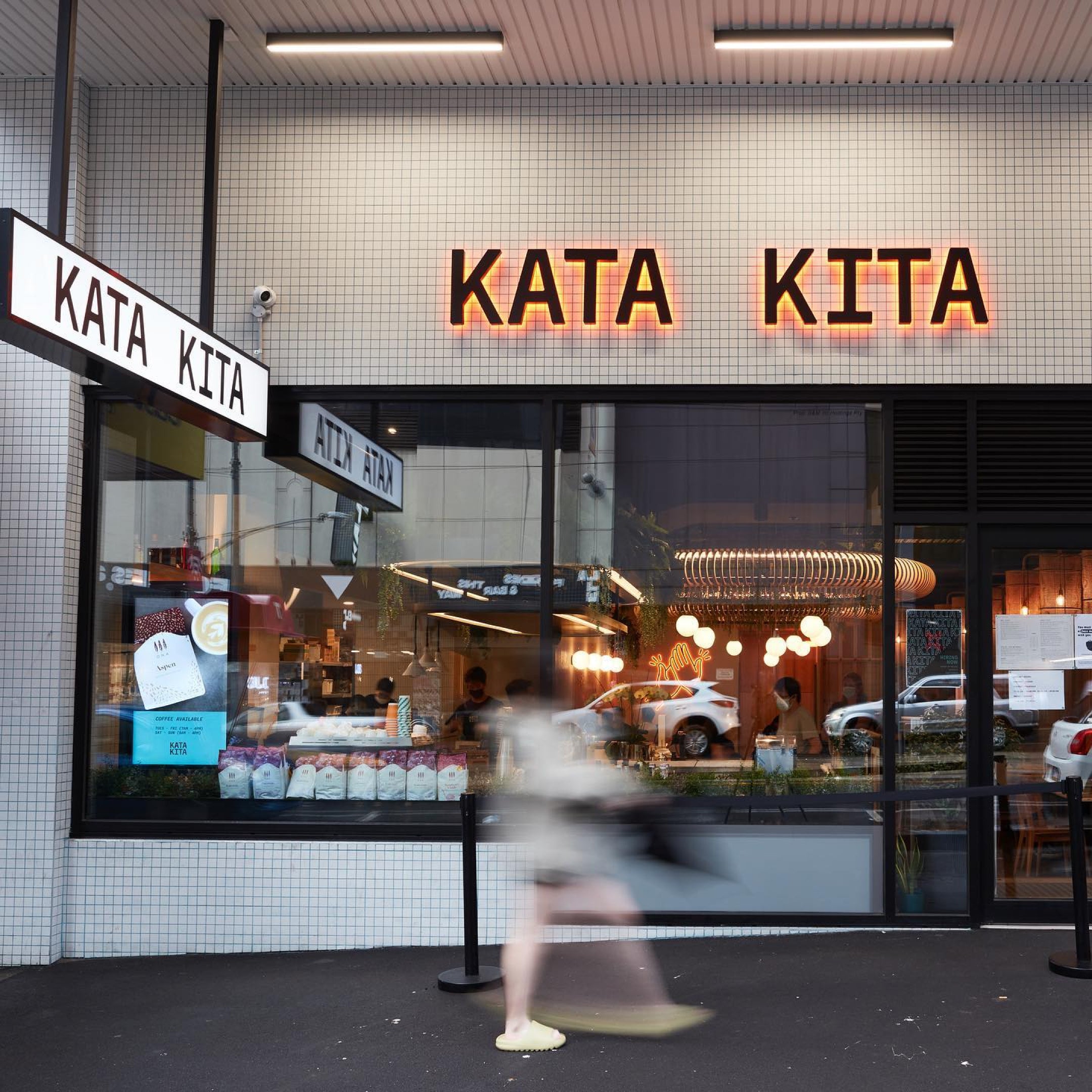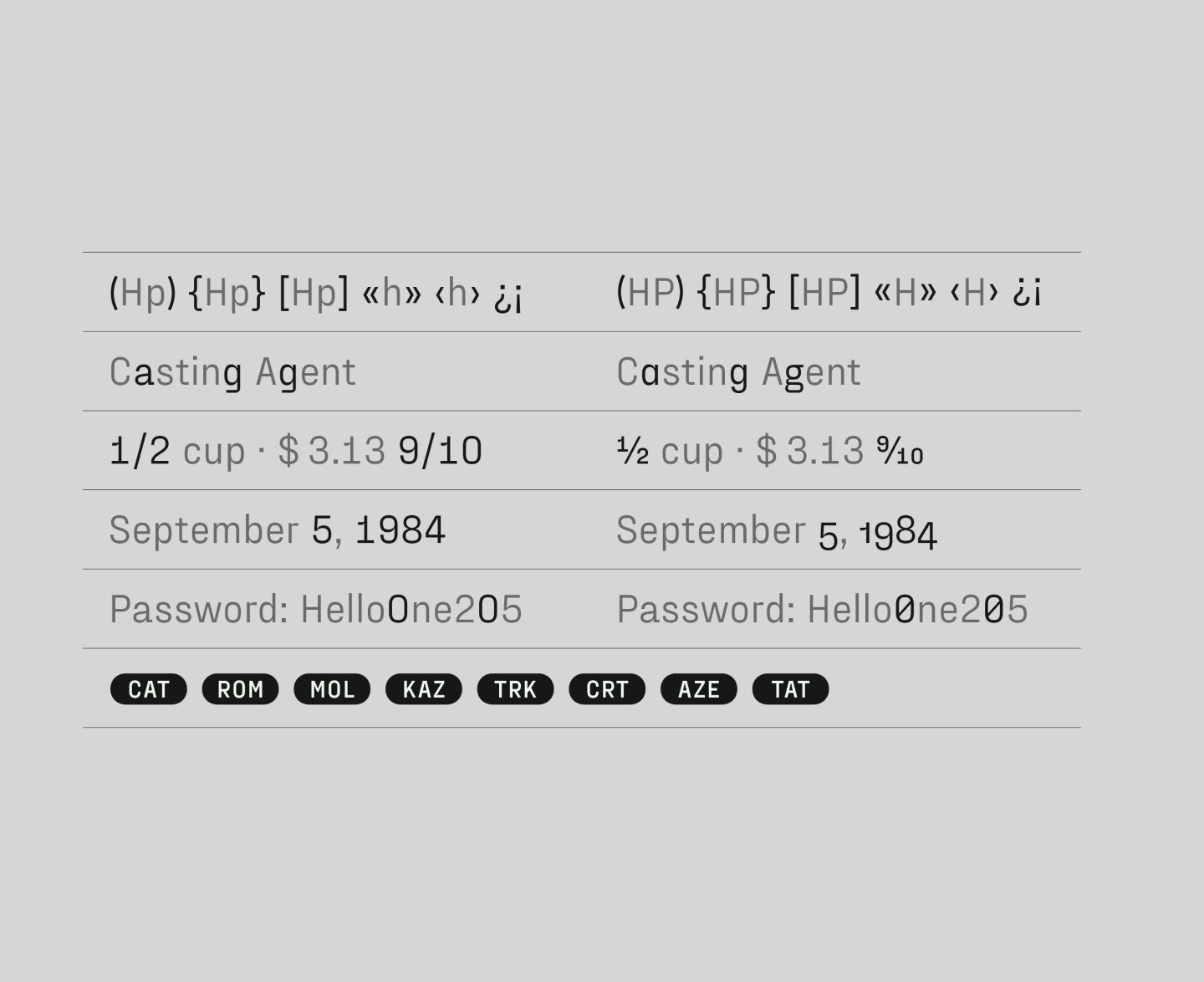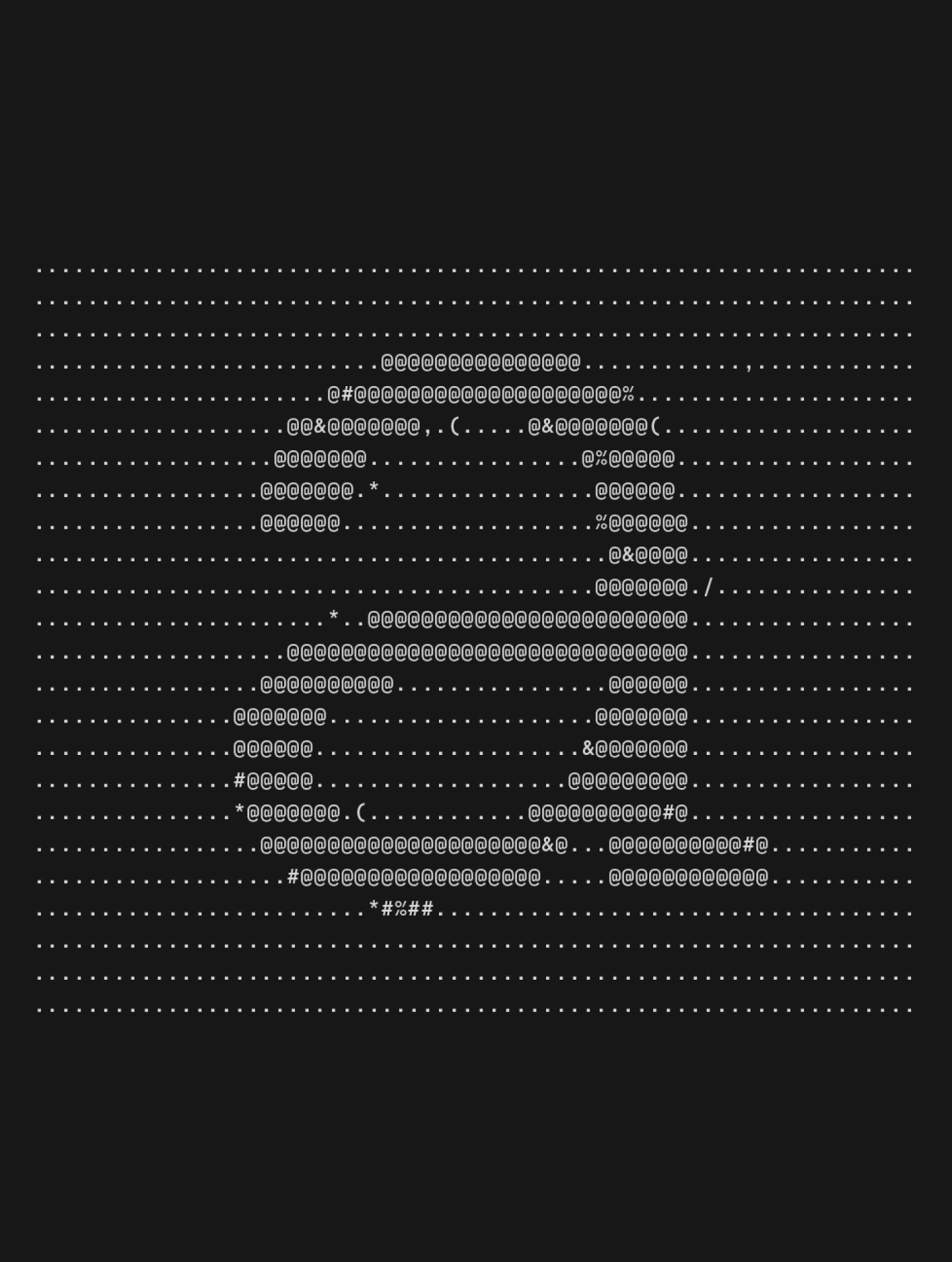
Fraktion Sans
Serious type. Slightly off.
Fraktion Sans
Forget neutrality, Fraktion got just enough edge to raise an eyebrow.
Fraktion Sans
Fraktion Sans walks the line between mechanical cool and human clarity—with boots planted firmly in the present and just a whisper of the past. Born from the structured world of vintage signage lettering, this isn’t some nostalgia trip. It keeps the square proportions and compact caps, but everything else has evolved into something sharper, smoother, and way more usable.
Fraktion Sans
There’s a quiet tension running through Fraktion: a grotesque with industrial undertones, shaped for modern use. Its squared-off curves, vertical terminals, and steady cadence bring a calm authority to screens and editorial layouts, while little hits—like that dramatic spur on the lowercase ‘a’, or the subtle ink traps—add just enough personality to keep things interesting. It doesn’t shout. But it doesn’t fade into the background either. Use it in all-caps and the signage roots peek through—bold, precise, a little imposing. Use it in mixed case and it becomes something entirely different: modern, adaptable, unexpectedly expressive. It’s a chameleon with a steel backbone. And when it’s time to go mono? Fraktion Mono flips the mood. Still built from the same design DNA, but reengineered for fixed-width functionality, it adds a surprising playfulness to a genre typically locked in rigid logic. It’s got just enough quirk to keep the code-crowd happy, without losing design credibility. Both families are packed with OpenType features—from case-sensitive punctuation to stylistic alternates, fractions, and slashed zeroes. And yes, 7 weights + italics, all available as variable fonts. So whether you’re going clean and sober, or throwing shapes in a brand system, Fraktion gives you the tools to do it with control—and just the right amount of twist.
Fraktion Sans is variable
Fraktion Sans's Features
Alternate a
Old style figures
Case sensitive forms
Classic g
Double Storey g
Slashed Zero
Structured to misbehave.
Fraktion Sans is a contemporary grotesque exploring the space between mechanical sturdiness and expressive clarity. While its inspiration stems from vintage signage lettering, the final design is a rather far departure.
The square shape and the compact capitals are the only remnants of the original influence and when set in all-caps the industrial spirit is vaguely present. Even so the typeface has been shaped to a modern, versatile allrounder with a slight technical feel that works great in sober applications for screen and in editorial - and still maintains character to be a strong voice in branding. An exaggerated spur on the lowercase 'a' and ink traps are defining visual characteristics just as the squared-off rounds’ true verticals help create a steady cadence.
The proportional Sans is complemented by a fixed-width design: Fraktion Mono. The refitted letter shapes of the monospaced design add a surprising playfulness to a genre that generally feels more technical, making Fraktion Mono’s cuts the more informal bunch of the family. Both typefaces offer plenty of typographic solutions through OpenType features like case sensitive punctuation, stylistic alternates, fractions and slashed zero. The 7 upright weights each have an italic counterpart and both sets are available as variable fonts.
2 cuts X 14 Styles with 604 Glyphs each
Including Italic Support